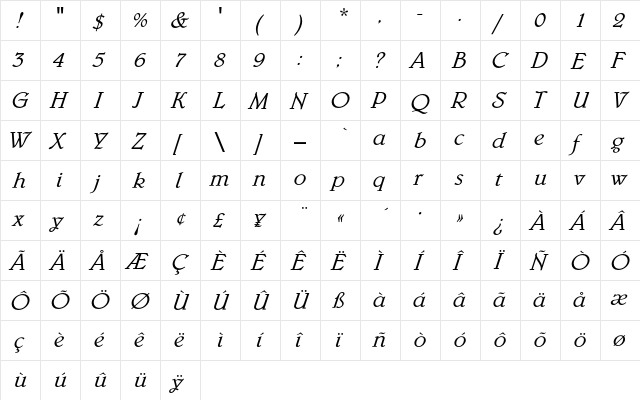
BelweEF-Italic Regular Font Preview
BelweEF-Italic Regular
Design Context for BelweEF-Italic Typeface
BelweEF-Italic offers clean, dependable letterforms without strong stylistic allegiance, making it a practical choice for designers who need flexibility. The slanted form adds forward momentum and visual energy.